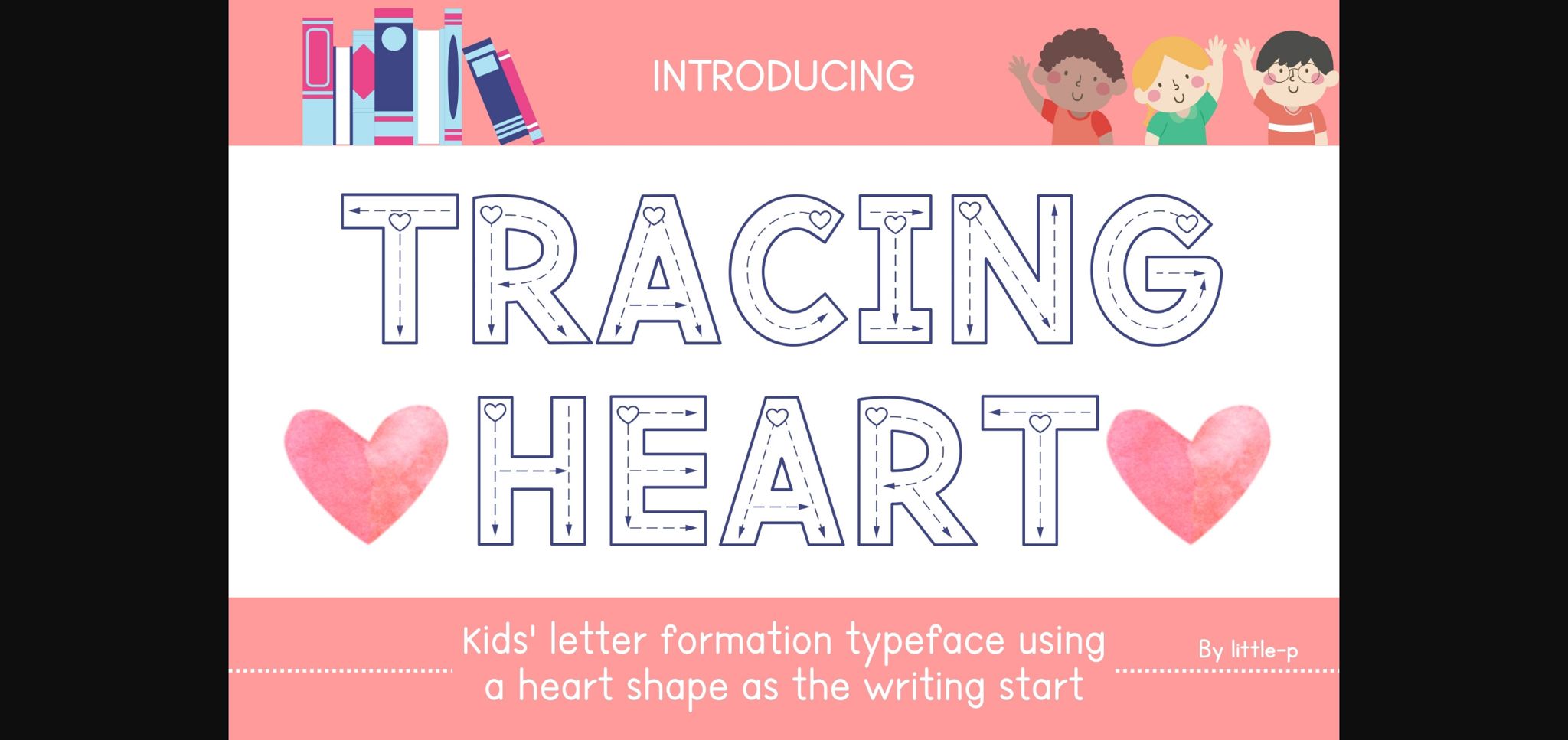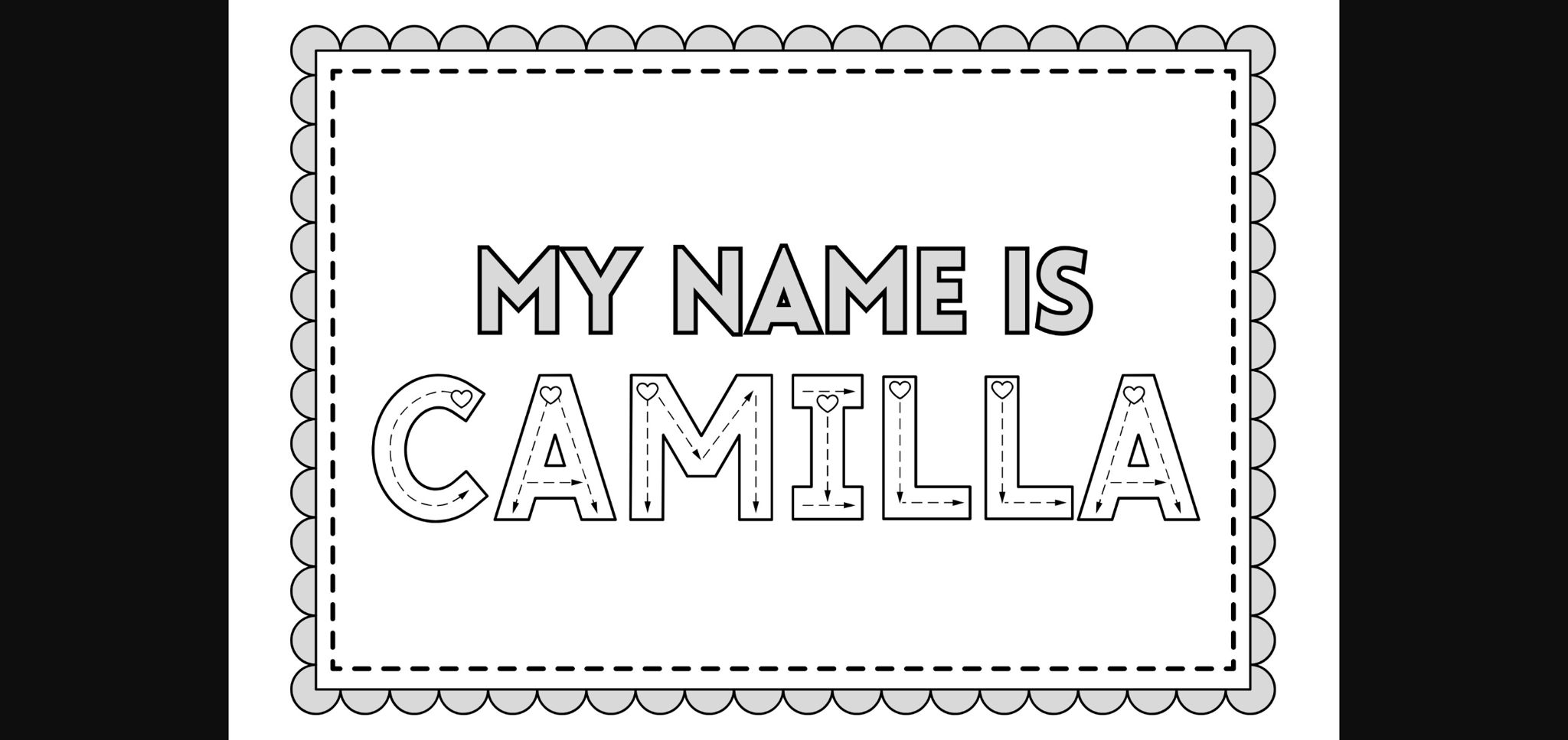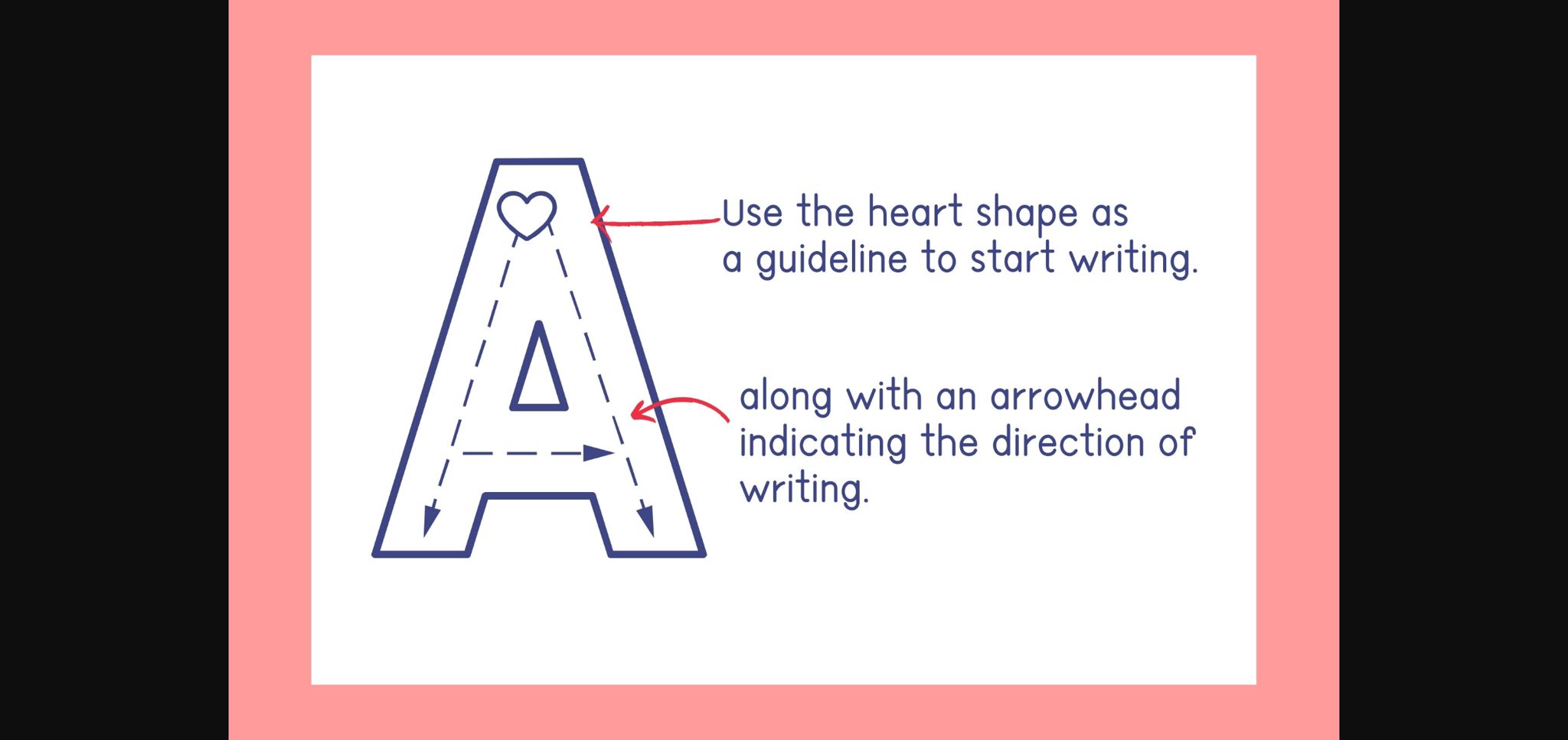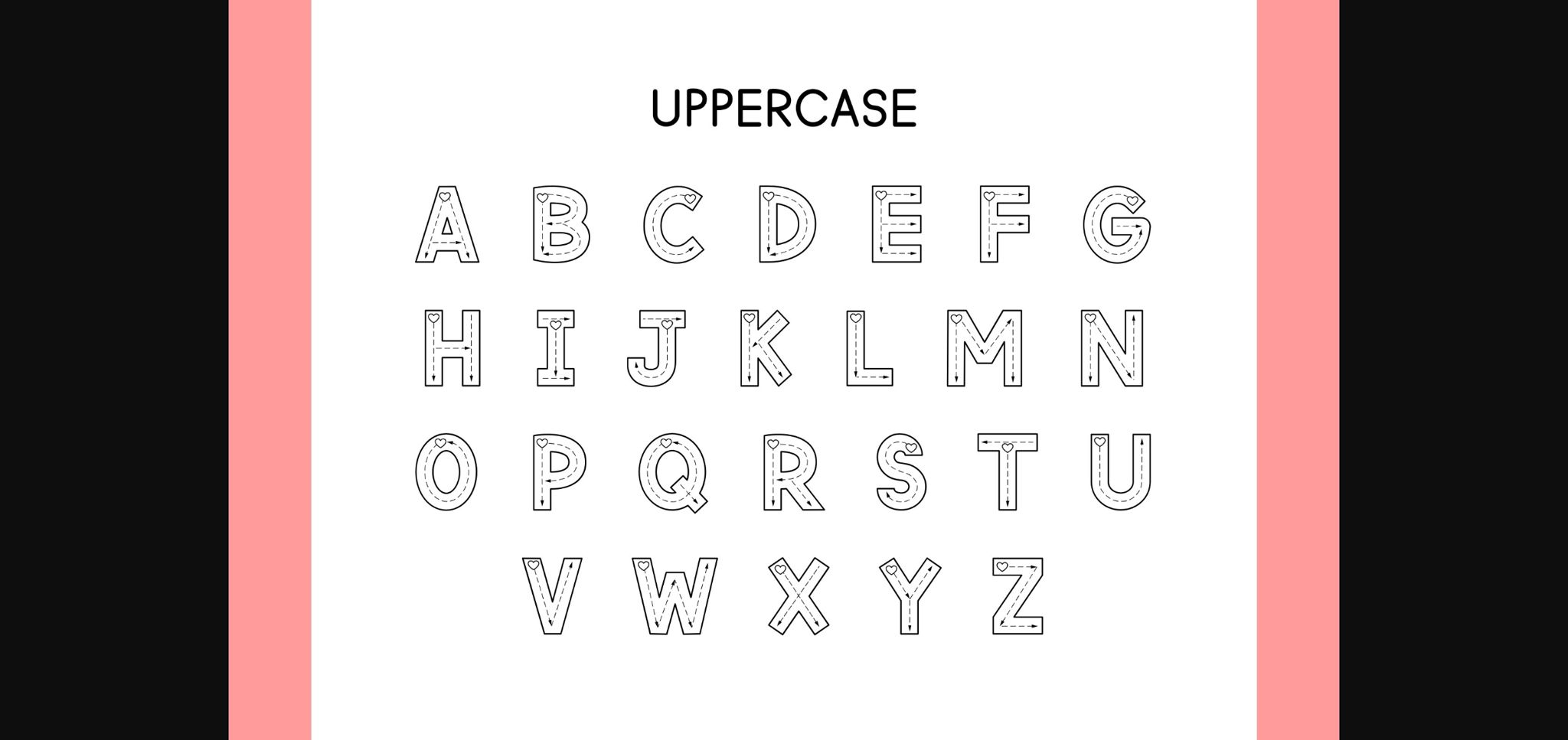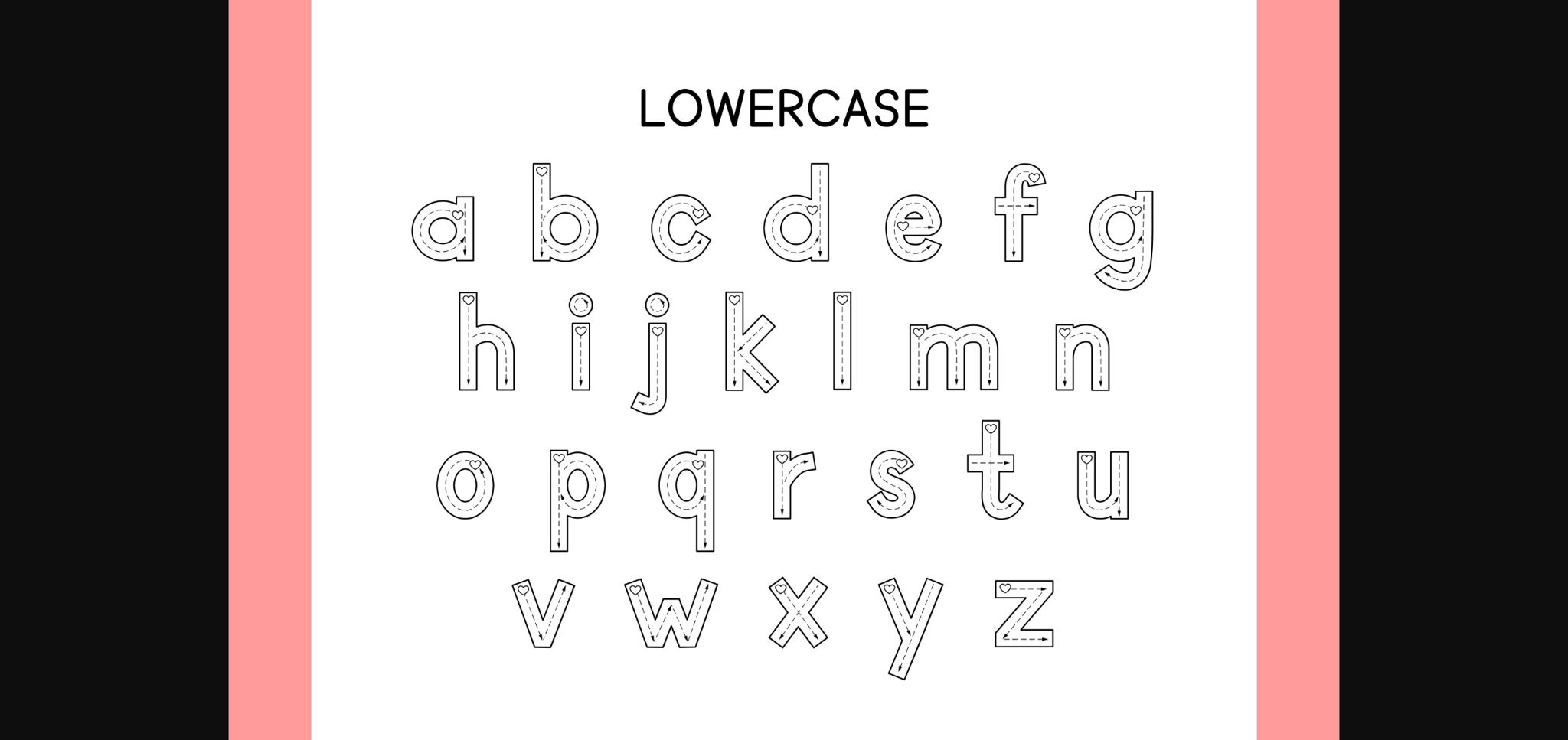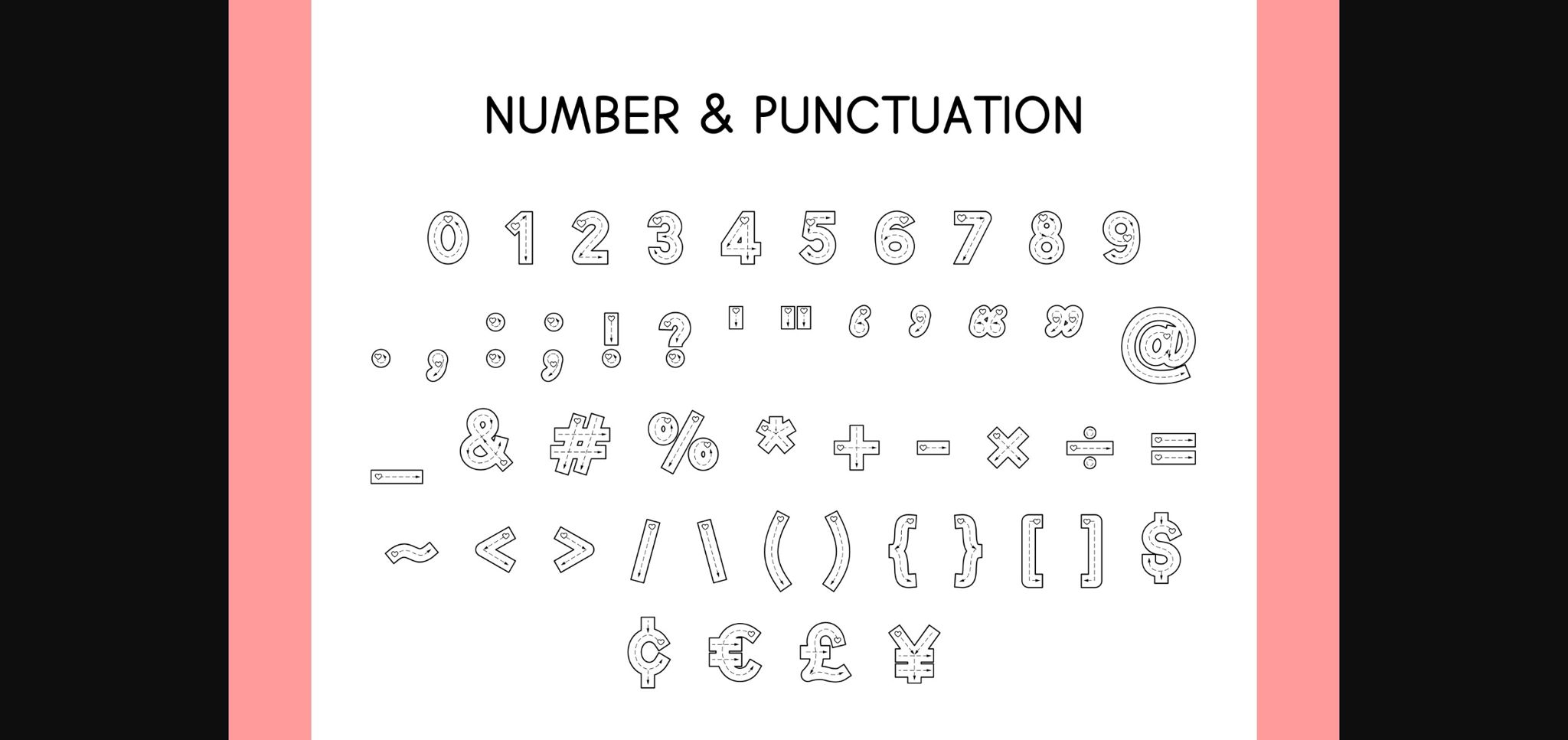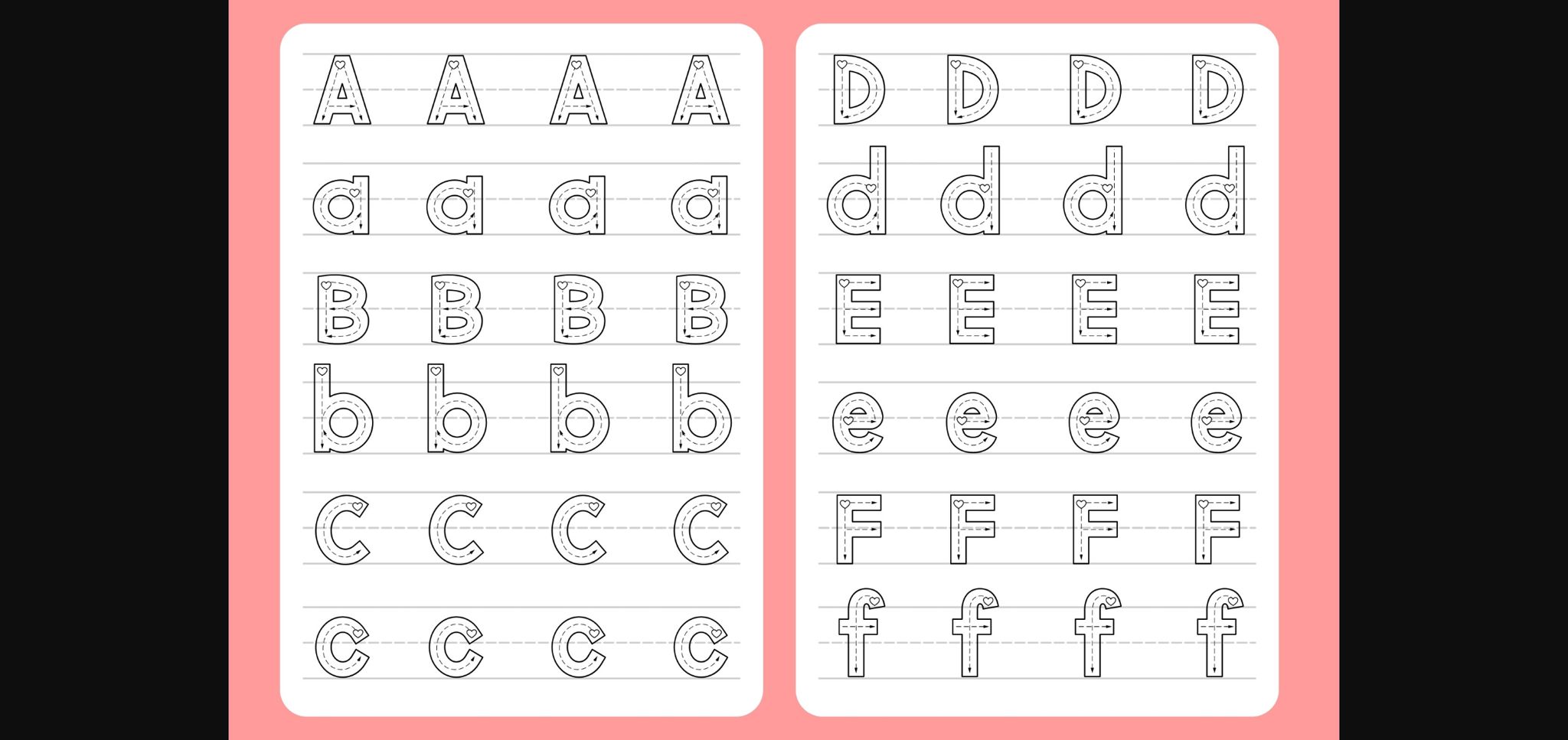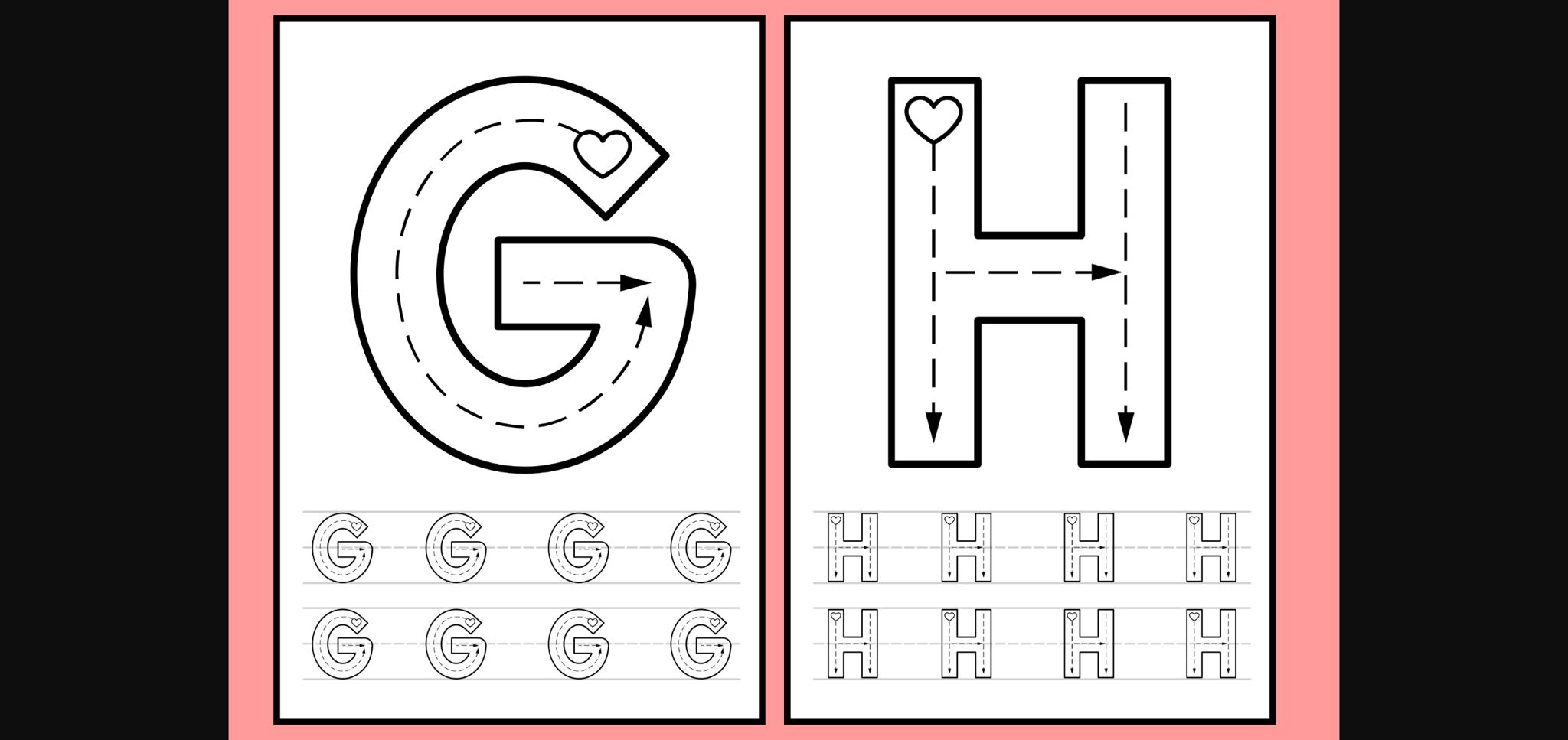
Tracing Heart Font
About Tracing Heart Font
Introducing “Tracing Heart” a delightful alphabet tracing font designed with children in mind. Each letter formation begins with a charming heart shape, adding a touch of sweetness to the learning process. This font is carefully crafted to aid in practicing letter recognition skills while maintaining a cute and appealing appearance.
Perfect for various educational purposes, including studying, worksheets, and learning media for students of all ages, from kindergarten to elementary school. Whether used in classrooms or homeschooling environments, “Tracing Heart” is a valuable tool for teachers and parents alike. Encourage young learners to develop their writing skills with this engaging and adorable font.